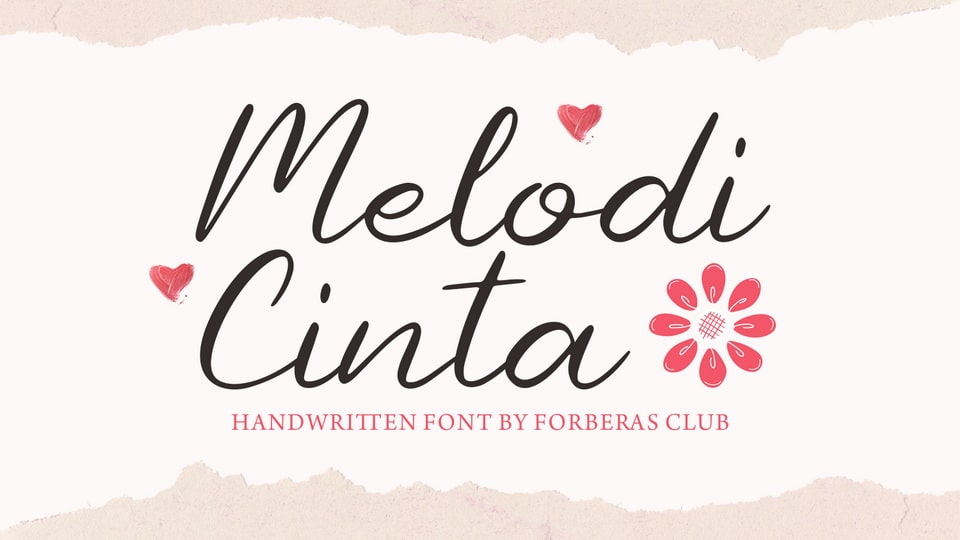
Download Melody Cinta font, a script typeface inspired by modern and ligature characters. It is especially designed for luxury, elegant, feminine projects, Melody Cinta font is perfect for creating modern and chic designs such as logos, packaging, editorials and more.